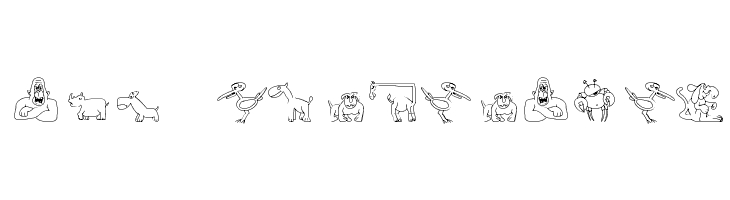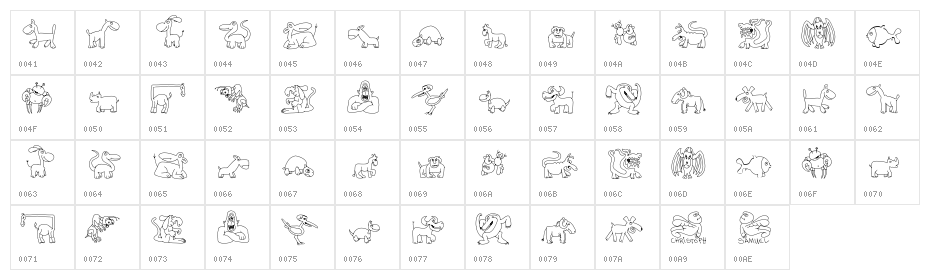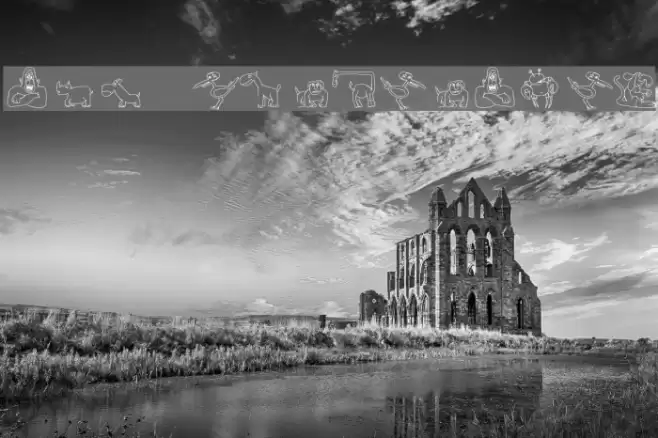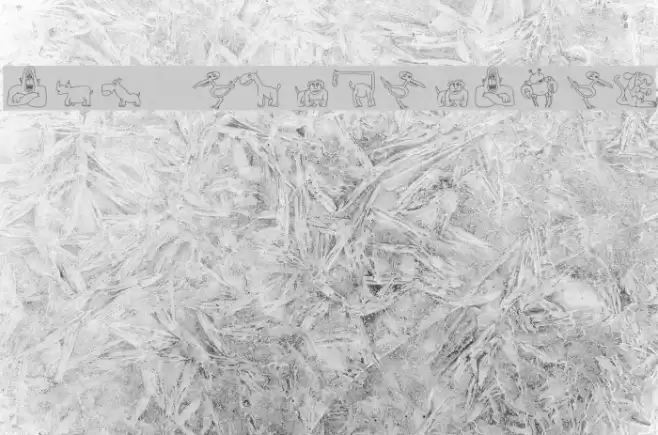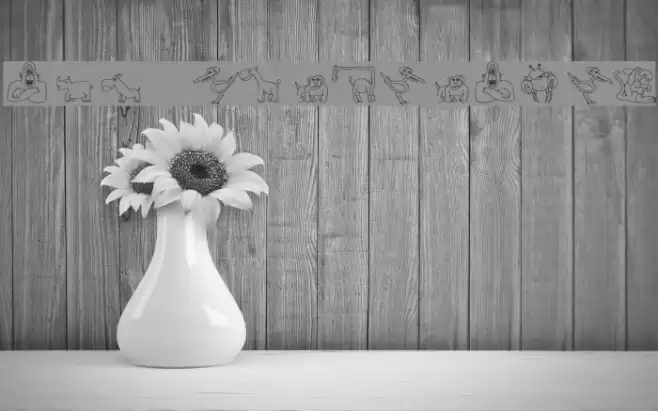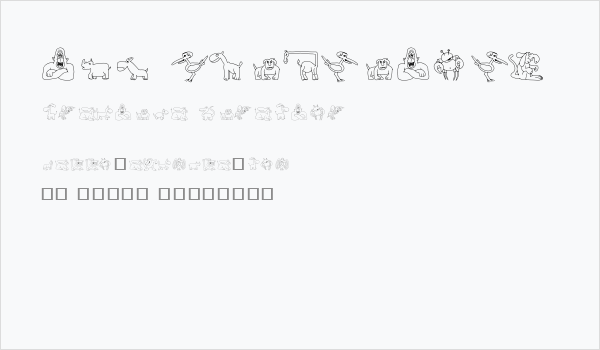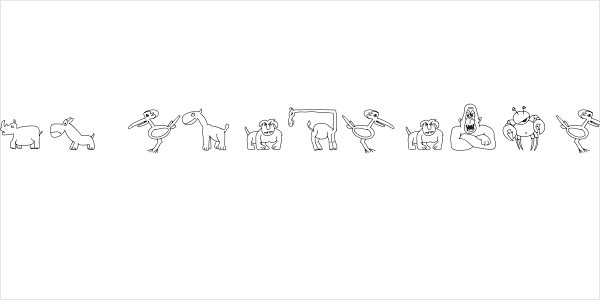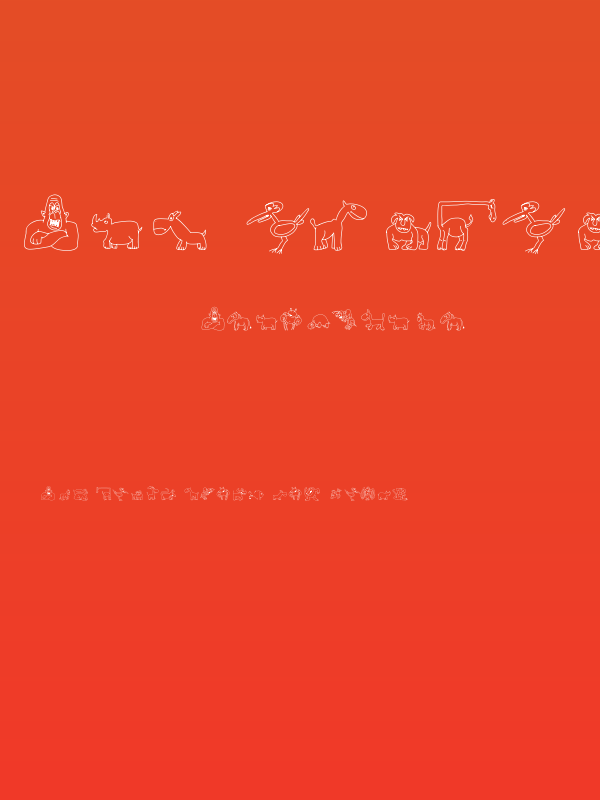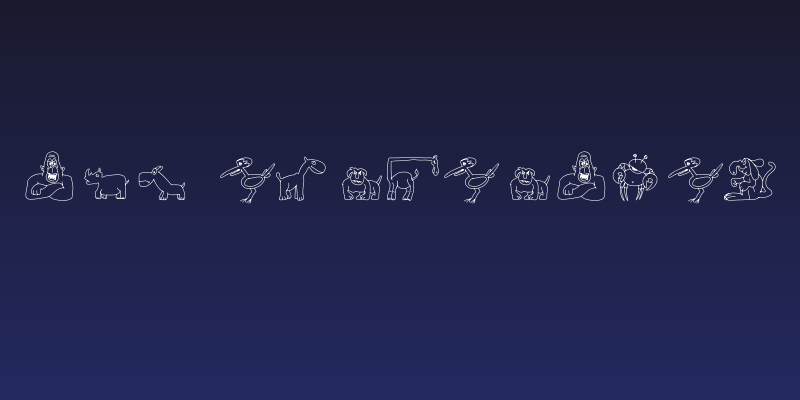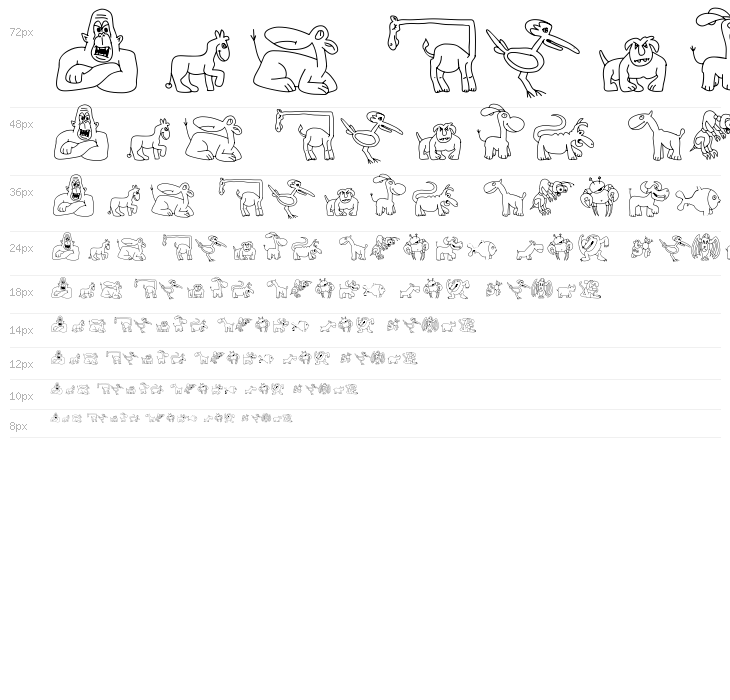
TPF Ubiquitous Font
TPF Ubiquitous Description
A whimsical, decorative font composed of continuous line drawings representing various animals and creatures for each character. The style is playful and artistic, with each glyph uniquely illustrated, making it highly distinctive and visually engaging.
| Overall Style | Decorative, Whimsical, Artistic |
| Use Case | Logos, Posters, ChildrenΓ’β¬β’s materials, Decorative headings |
| Proposed Projects | ChildrenΓ’β¬β’s books, educational materials, playful branding, creative posters, greeting cards, and themed event invitations. |